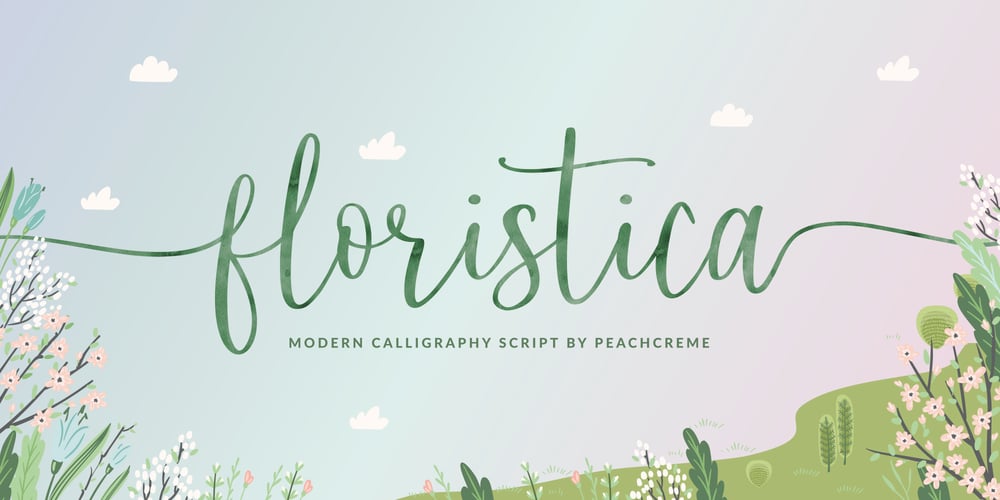
Floristica Font Family was designed by Gulya Yeap and published by PeachCreme. Floristica contains 1 styles and family package options. Say hello to our new modern calligraphy font “Floristica”! Featuring handwritten, sophisticated flows, it provides a full set of uppercase and lowercase letters, multilingual symbols, numerals, and punctuation. Additionally, it includes lowercase beginning and ending swashes, making it perfect for invitations and monograms. With its smooth texture, it would be ideal for all kinds of home crafters (cricut, silhouette, etc). “Floristica” works great for wedding designs, logos, stationery, signature, quotes, cards, display text, and so many other designs.